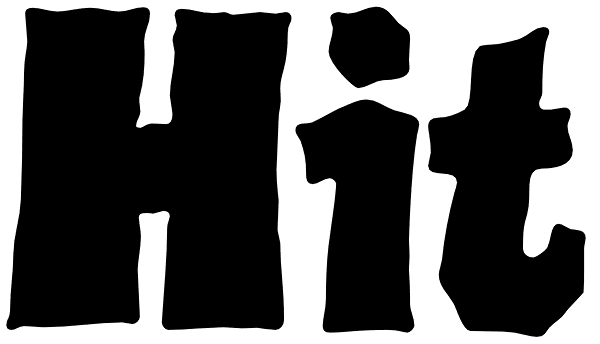
Hit
Hit is crunchy and primed for fun. Crispy letters, chewed from potato chips will inspire readers to strip down to their underwear and impede traffic en-masse with their ridiculous bicycles.
Hit Font